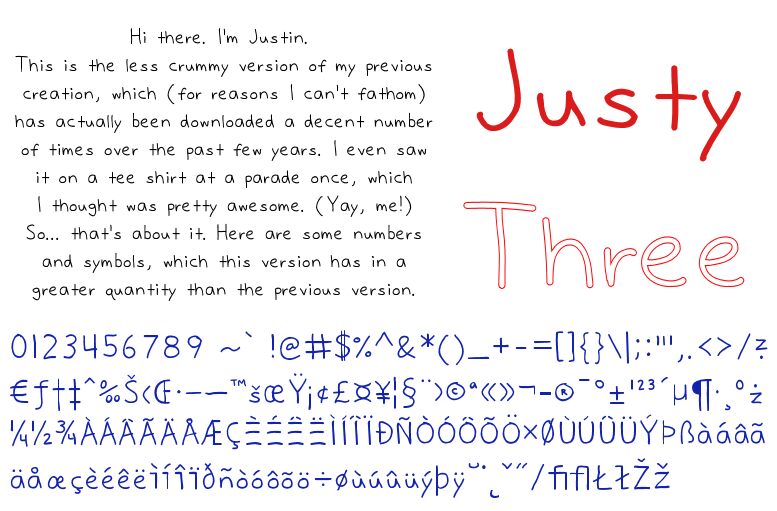
Justy Three by Justin Brown is a free handwritten font with tall, loosely drawn letters and a lively, uneven line. Its rounded curves, changing stroke widths, and generous openings give the alphabet a light, spontaneous appearance, with especially elastic proportions and gently wavering forms.
Playful, everyday subjects are its natural territory, especially on children's activity sheets, community workshop posters, and classroom materials that benefit from an approachable, handmade voice. It also suits cafe packaging and personal stationery, where the relaxed lettering can echo doodles, illustrated ingredients, or casual notes instead of acting as neutral text. Younger audiences and small independent brands are the clearest fit.